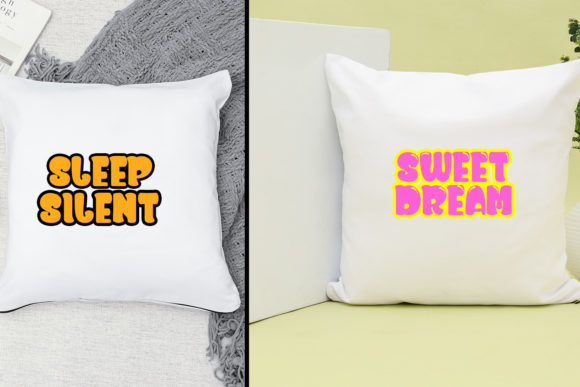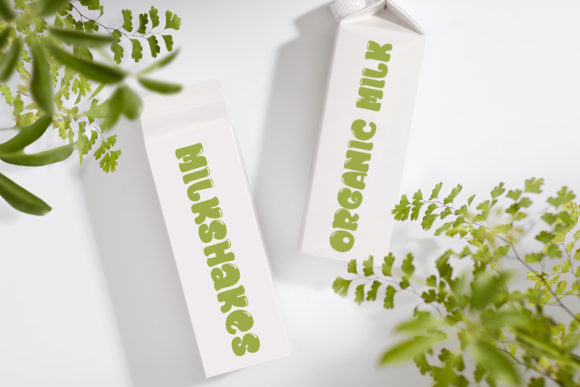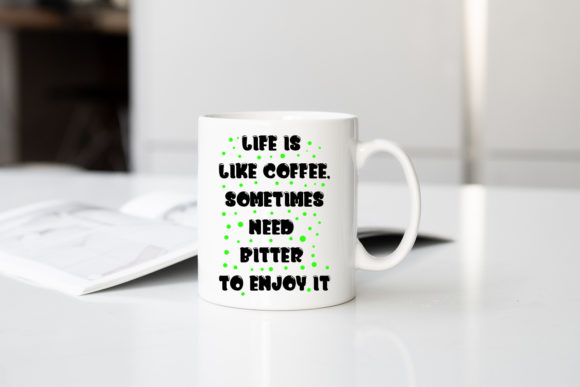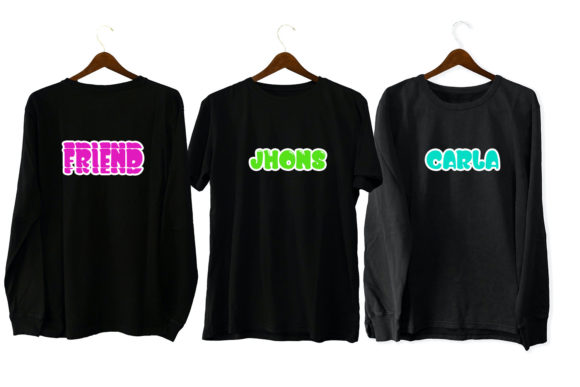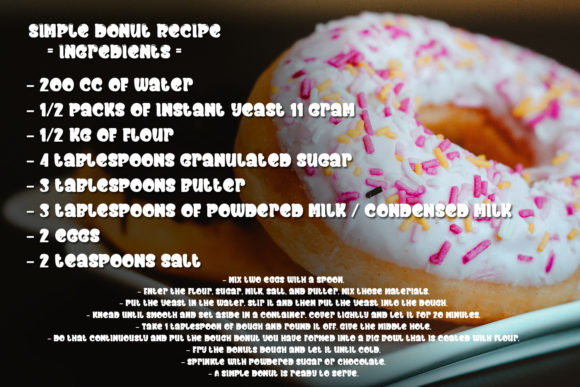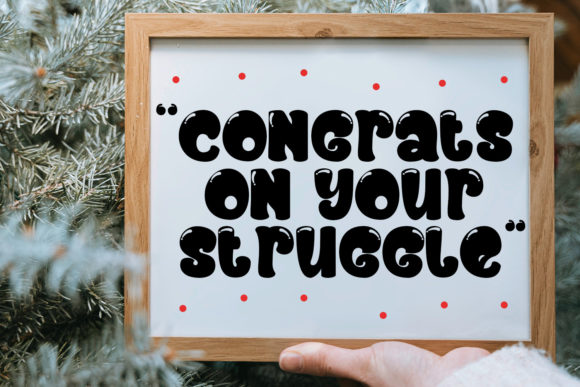
Introduction to Chunky Spinach Font
Chunky Spinach is a childish, easy-to-read display font that conveys impeccable friendliness.
Whether youโ€™re using it for crafts, digital design, presentations, or making greeting cards, this font has the potential to become your favorite go-to font, no matter the occasion .
Key Features of Chunky Spinach Font
Why Choose Chunky Spinach Font?
Chunky Spinach Font offers exceptional quality and versatility, making it a valuable addition to your design toolkit. Whether you’re creating for personal projects or commercial use, Chunky Spinach Font delivers professional results.